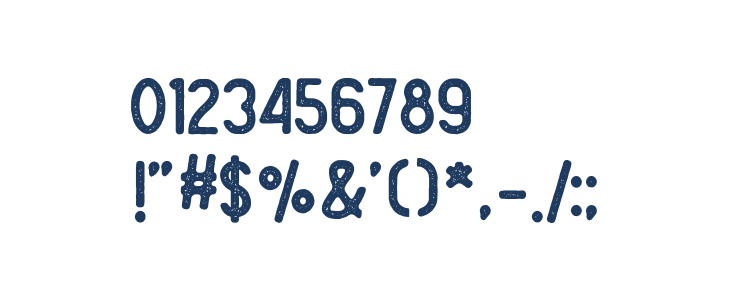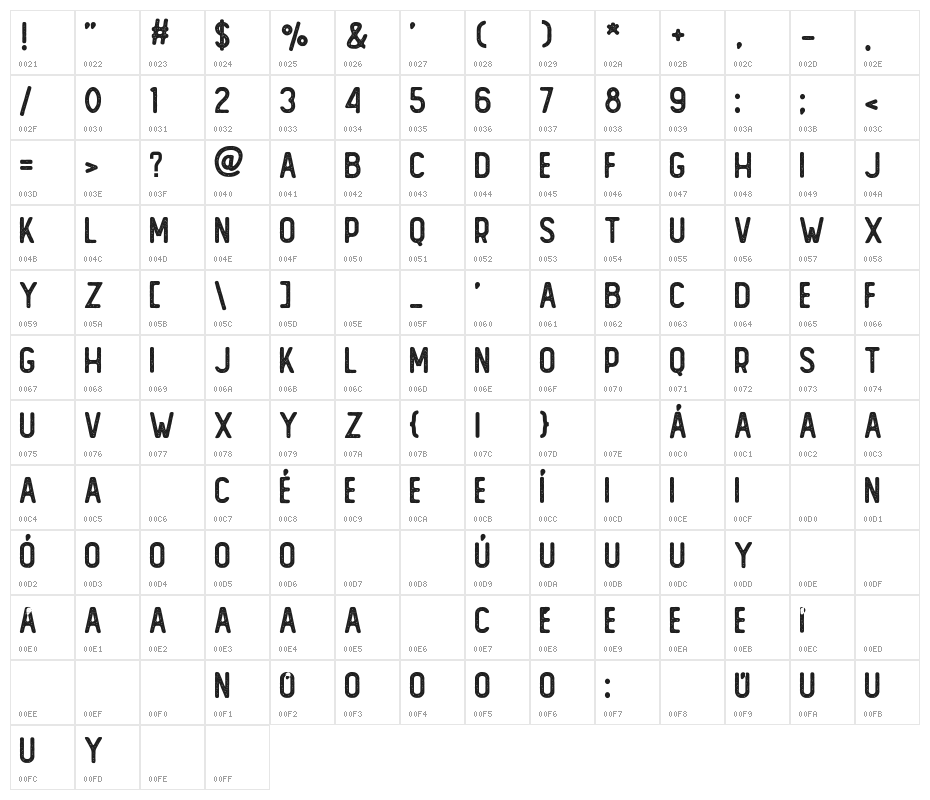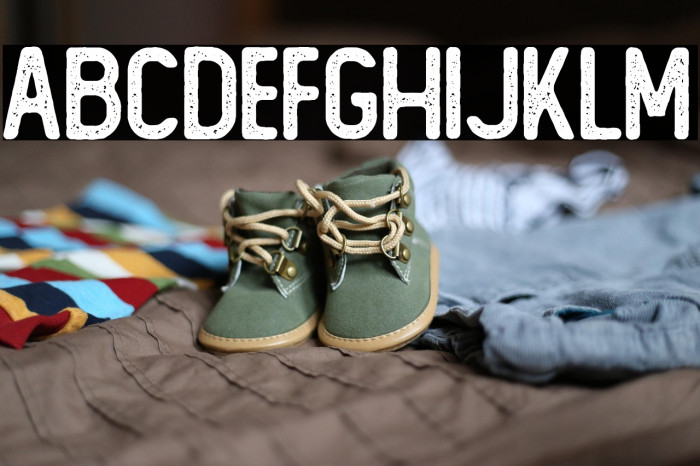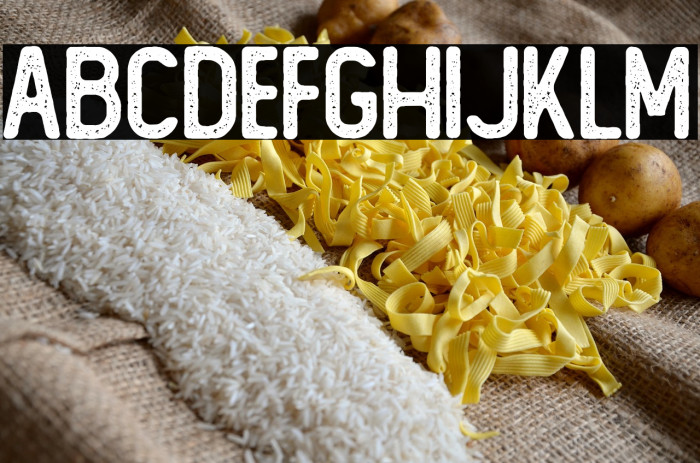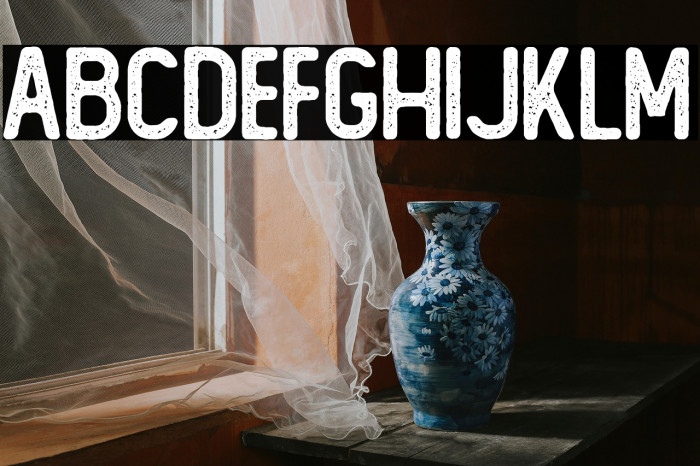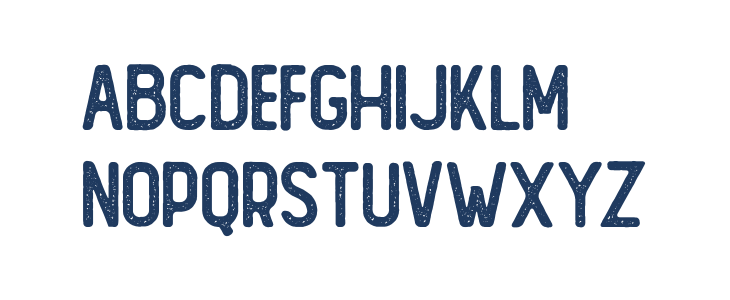
GRAHM Sans Rough Font
GRAHM Sans Rough Description
This font features a bold, rough texture that gives it a distressed, vintage appearance. The characters are sans-serif, with a consistent thickness throughout, contributing to a robust and sturdy look. The rough texture adds a tactile, handcrafted feel, making it stand out in any design. The uppercase and lowercase letters maintain a uniform height, providing a balanced and cohesive appearance. The numerals and special characters are designed to match the overall style, ensuring consistency across all text elements. This font's unique texture and bold presence make it ideal for projects that require a strong visual impact.
| Overall Style | Vintage |
| Proposed Projects | Ideal for branding, posters, packaging, and any design requiring a bold, vintage aesthetic. |